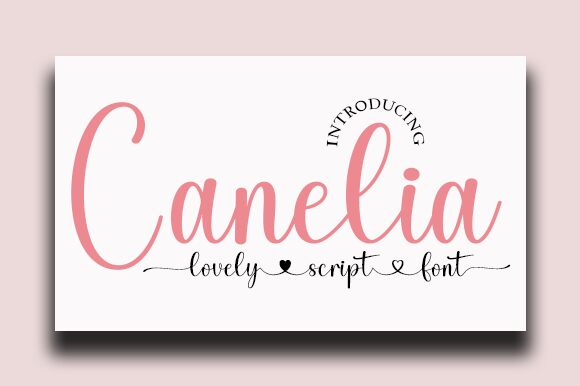
Canelia
Canelia, the lovely handwritten font by Wahyu Studio, adds a touch of warmth and personality to any project. With its semi-light weight and semi-condensed width, it's perfect for designs that require a softer touch. Use it for wedding invitations, greeting cards, or even on your blog headers to give your content that personal touch. Canelia's charming curves and unique letterforms make it stand out from other handwritten fonts, making it perfect for branding projects as well. Whether you're looking to add a little bit of whimsy to your design or want to create something truly special, Canelia is the font for you.